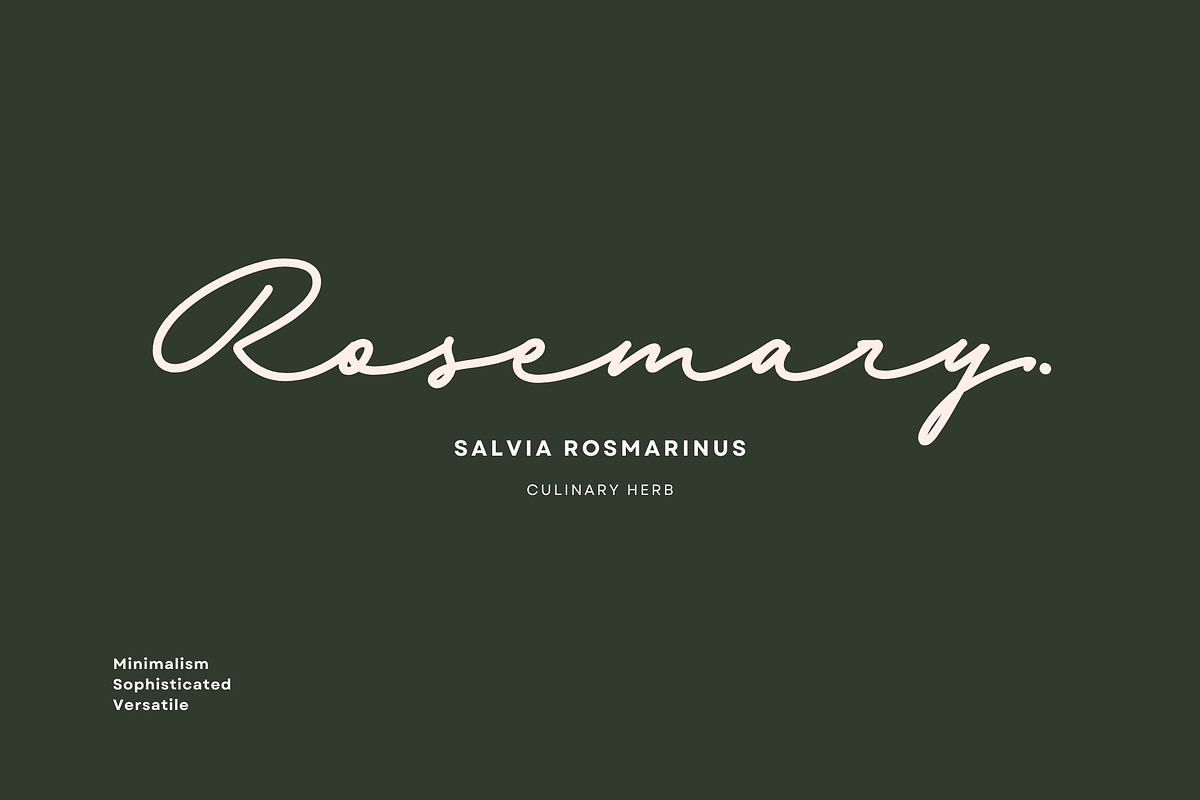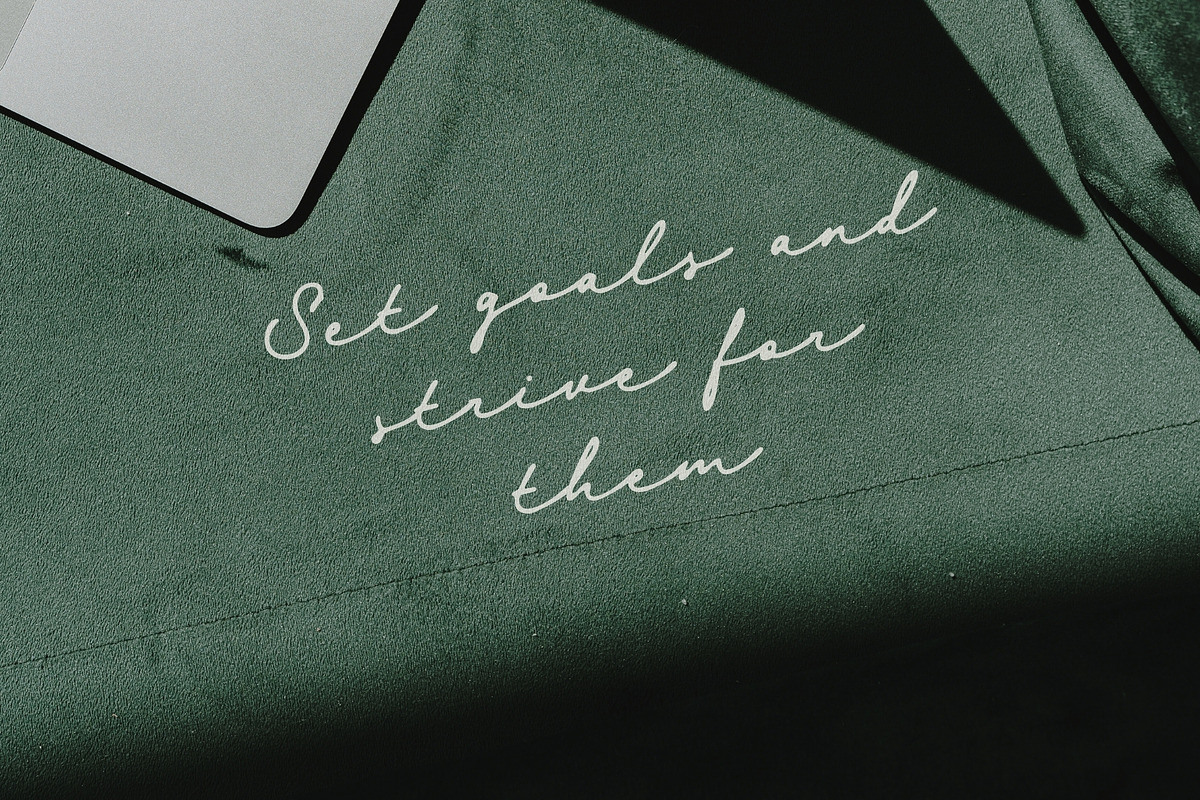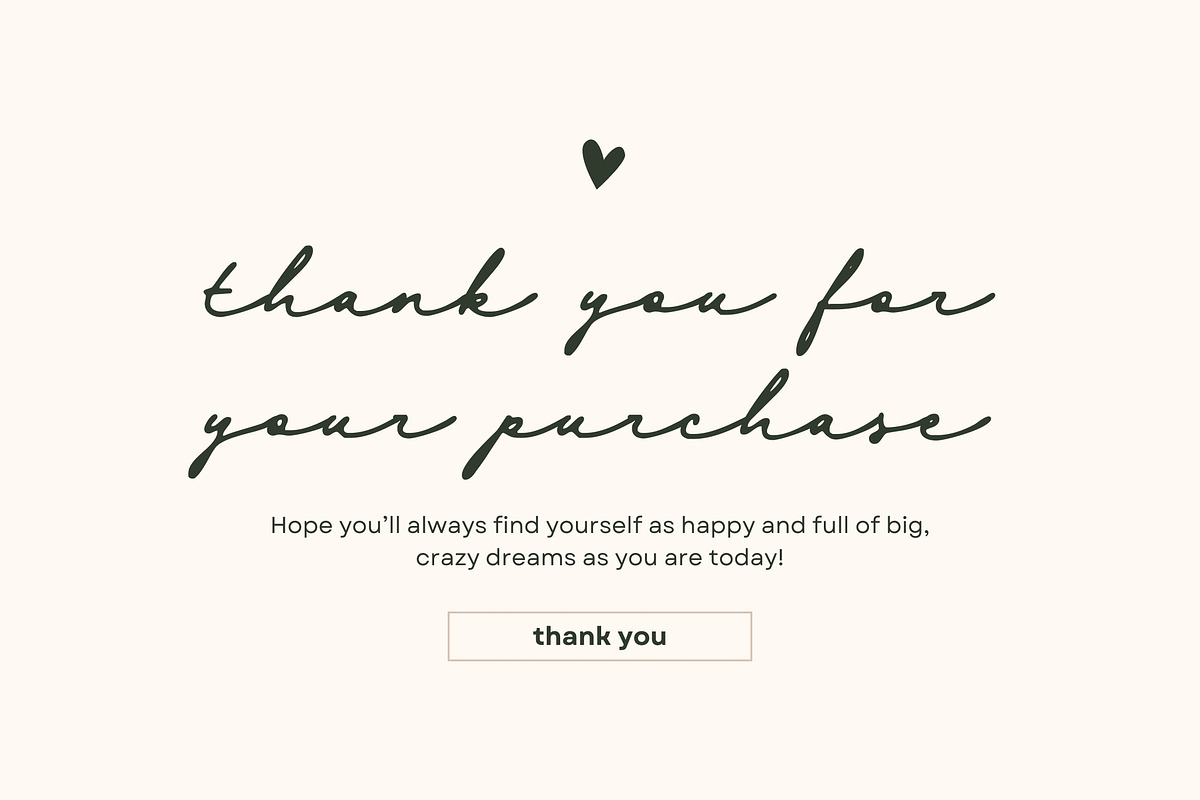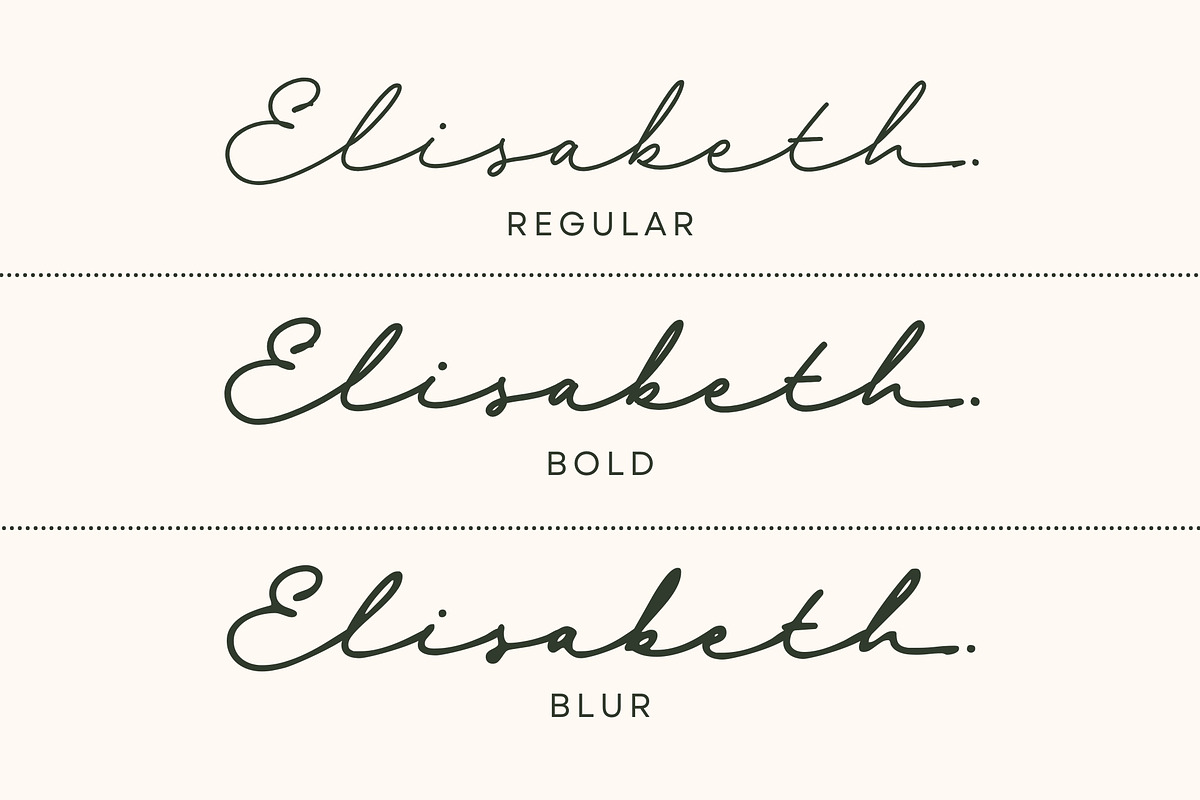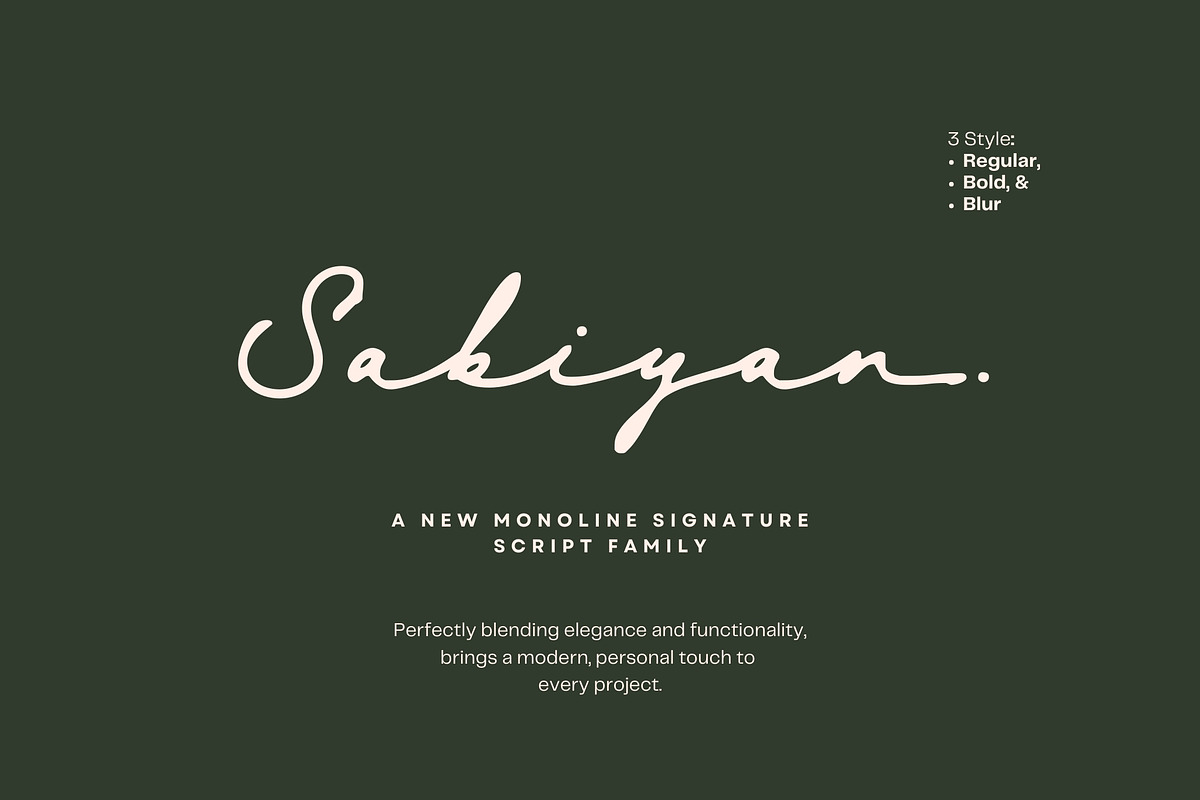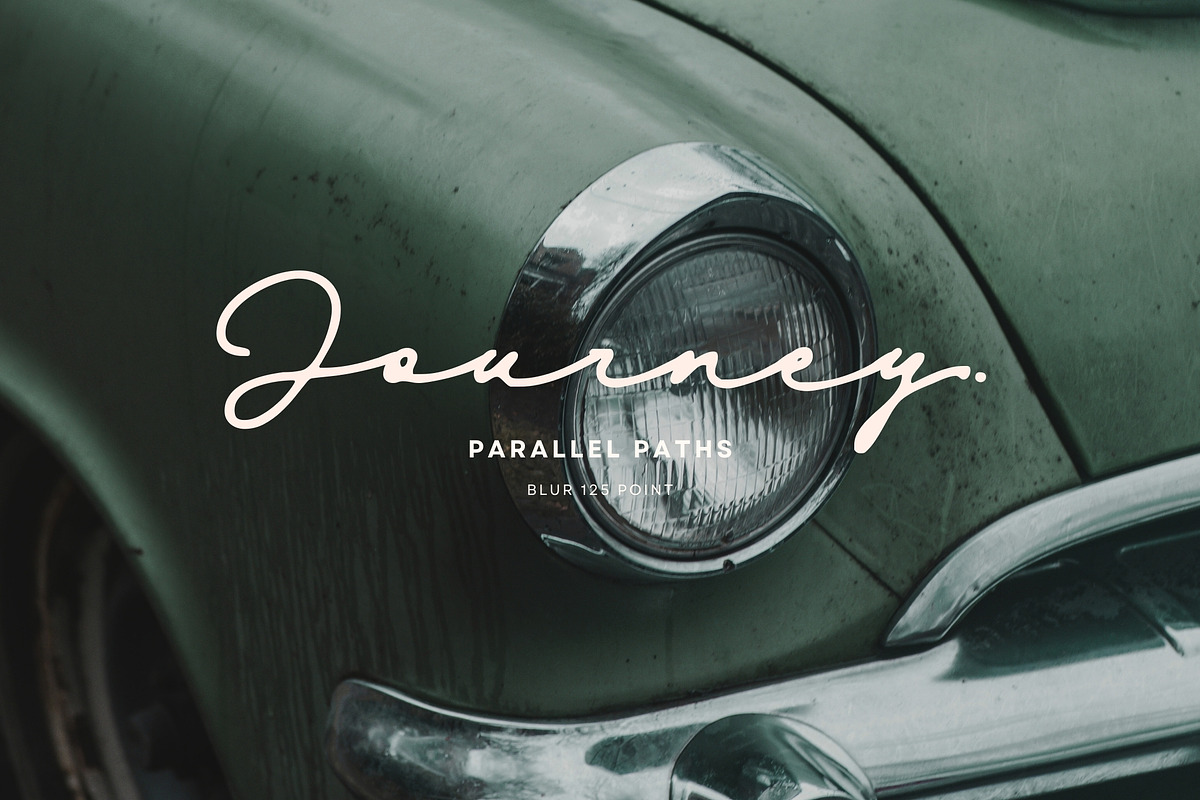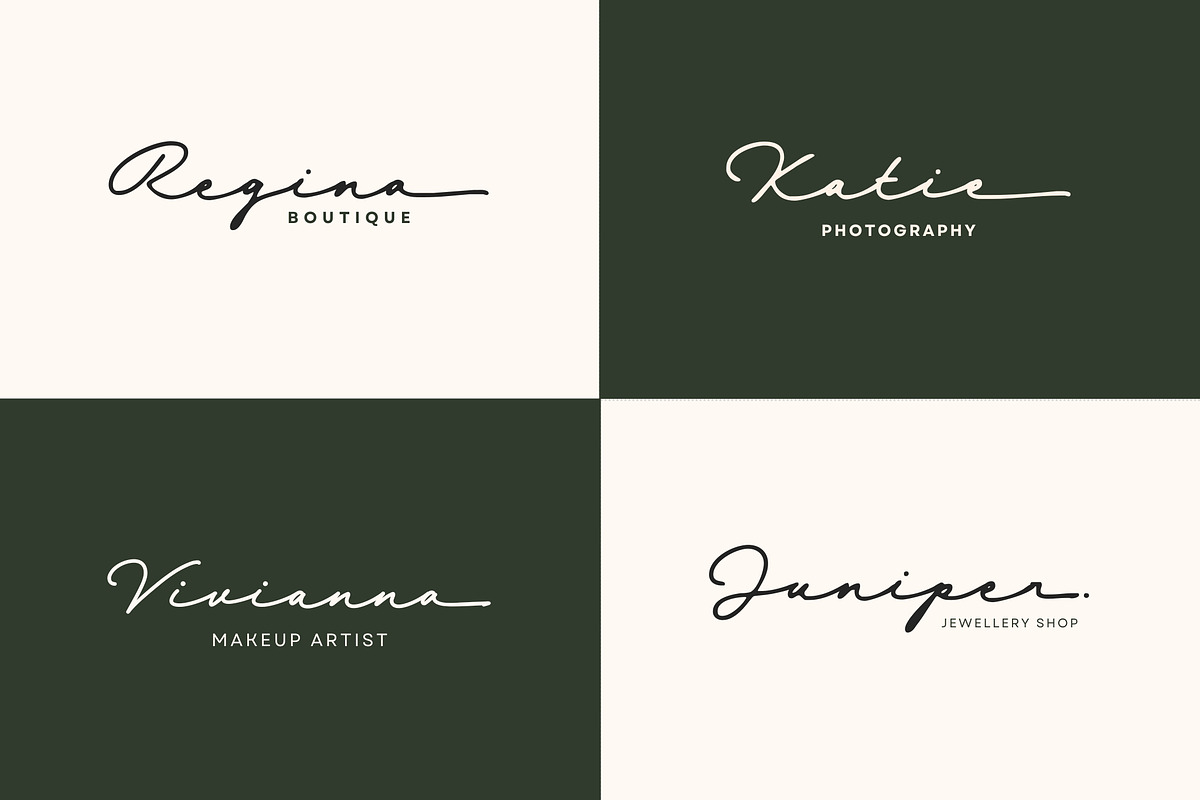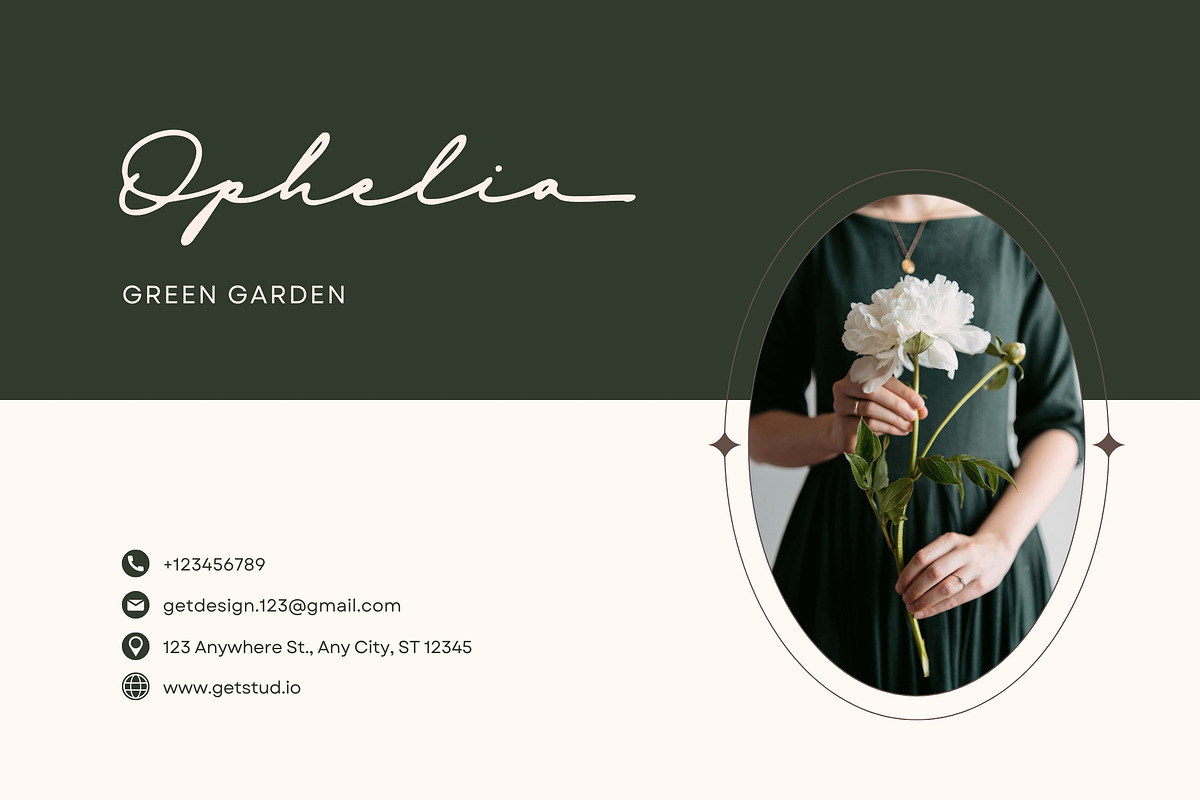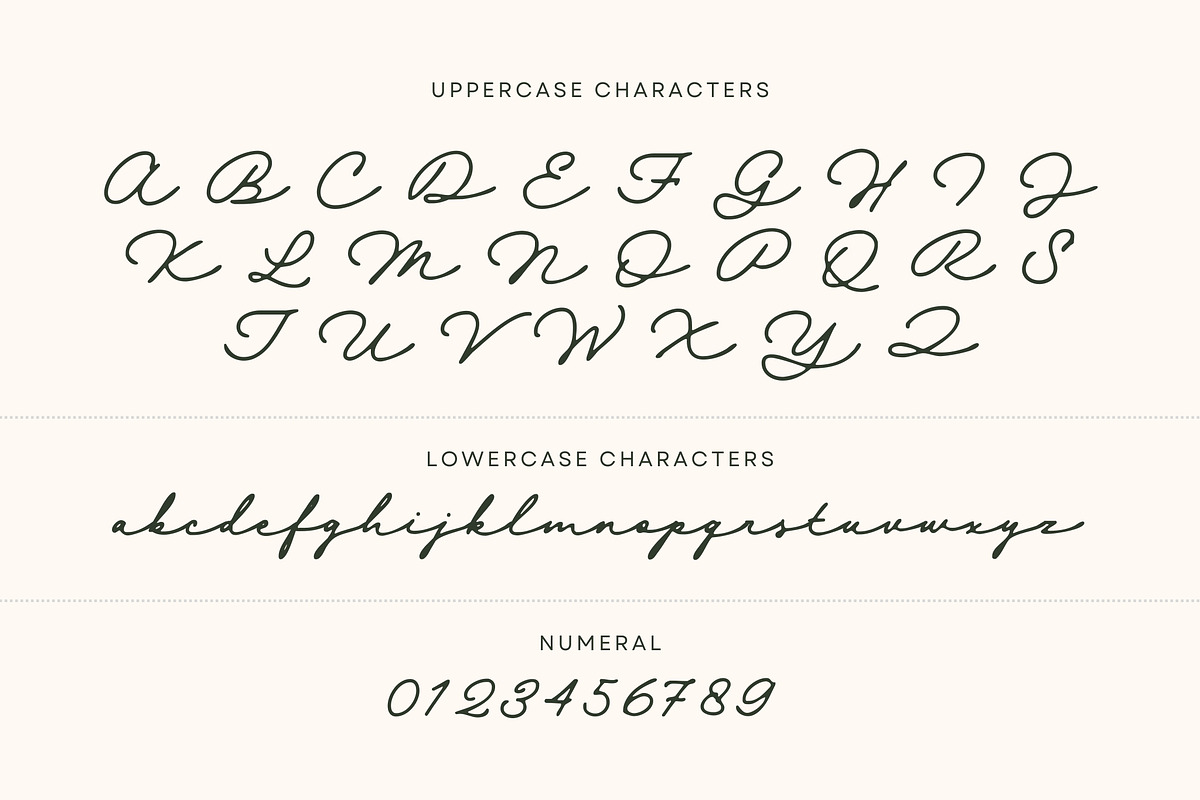
Sabiyan Script
Introducing Sabiyan Script, a sleek monoline signature script font designed to elevate your creative projects. With its three versatile styles—Regular, Bold, and Blur—this font adapts seamlessly to a range of design needs, from minimalist logos to inspiring quotes and beyond.
Perfectly blending elegance and functionality, Sabiyan Script brings a modern, personal touch to every project. Whether you're crafting a chic brand identity, designing striking headlines, or adding a stylish flair to your layouts, this font delivers a timeless aesthetic.
Let your creativity flow effortlessly with Sabiyan, your new go-to for sophisticated, versatile designs.